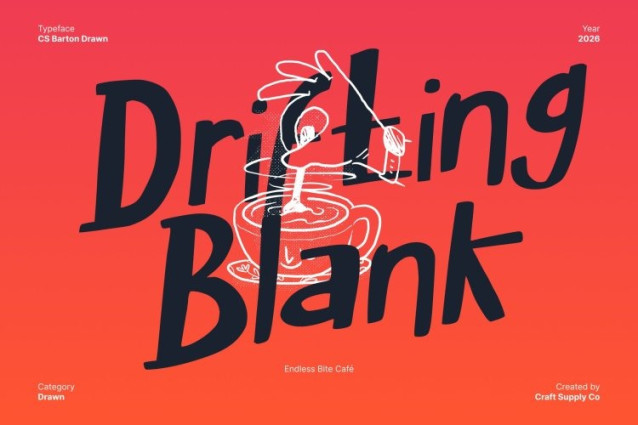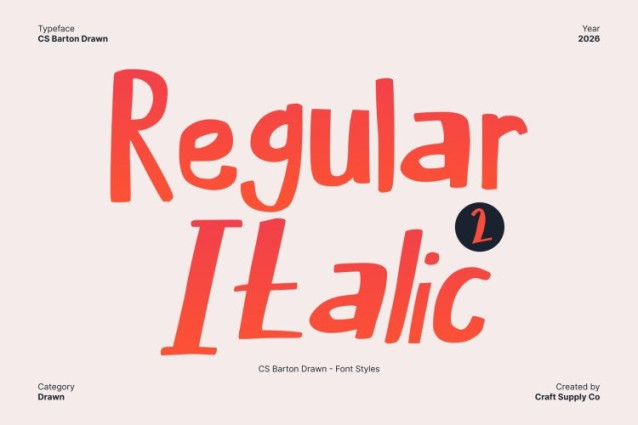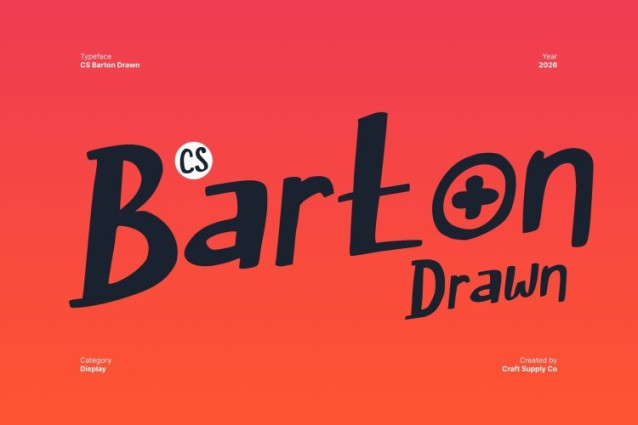
CS Barton Drawn Font
CS Barton Drawn Font This is captures the spontaneous spirit of marker lettering, delivering a playful handwritten display font full of movement and expression. Its bold yet relaxed strokes bring text to life with casual vibrance, making every word feel authentic, friendly, and effortlessly expressive.
Floral Inspiration with Soft Feminine Character
Subtle floral inspiration gives this font a gentle feminine touch. Soft curves and natural rhythm add warmth and delicacy without losing the confident presence of a marker style. This balance creates a charming visual identity that feels joyful, graceful, and full of personality.
Perfect for Branding and Lifestyle Projects
This font works beautifully in branding, lifestyle visuals, packaging, and social media content. Its handwritten marker flair connects naturally with audiences, making it ideal for projects that want to communicate creativity, youthfulness, and an approachable, modern tone.
Modern Versatility with a Playful Twist
Playful yet balanced, this font adapts easily to a wide range of uses. From bold headlines and expressive logos to casual captions and digital graphics, this font delivers modern versatility infused with a cheerful, feminine charm.